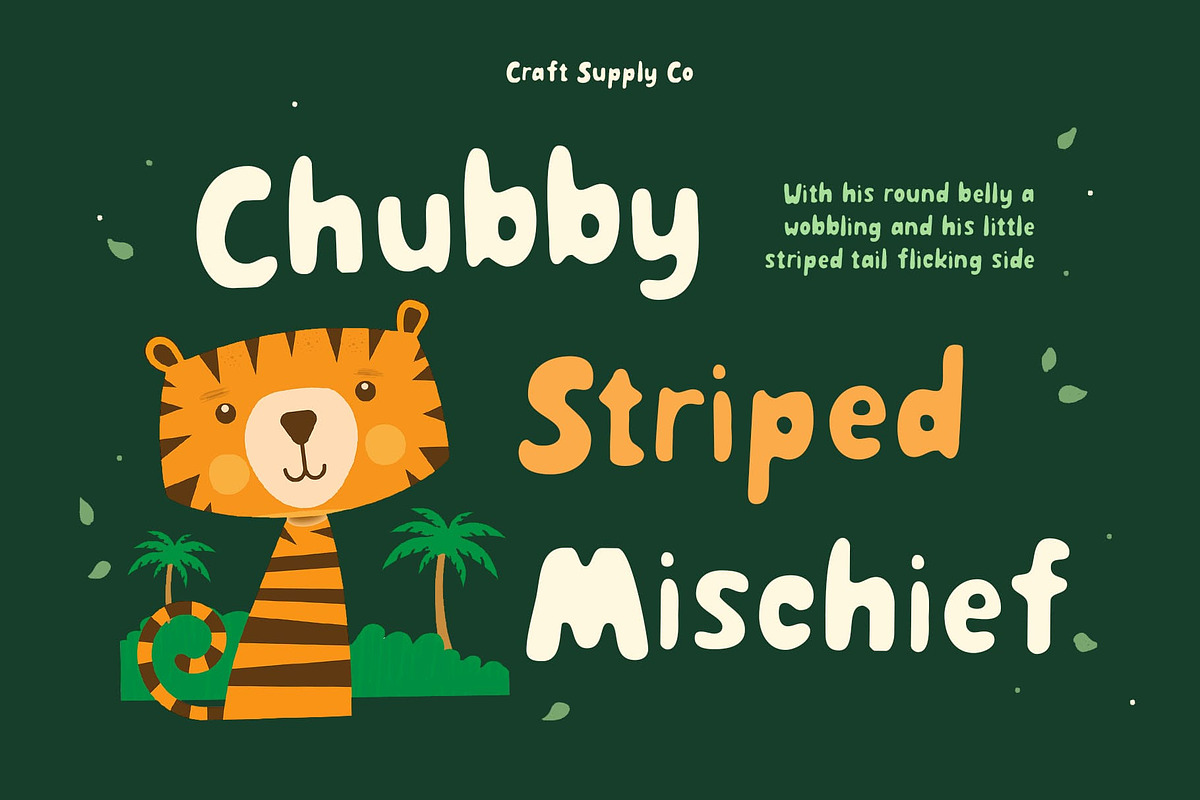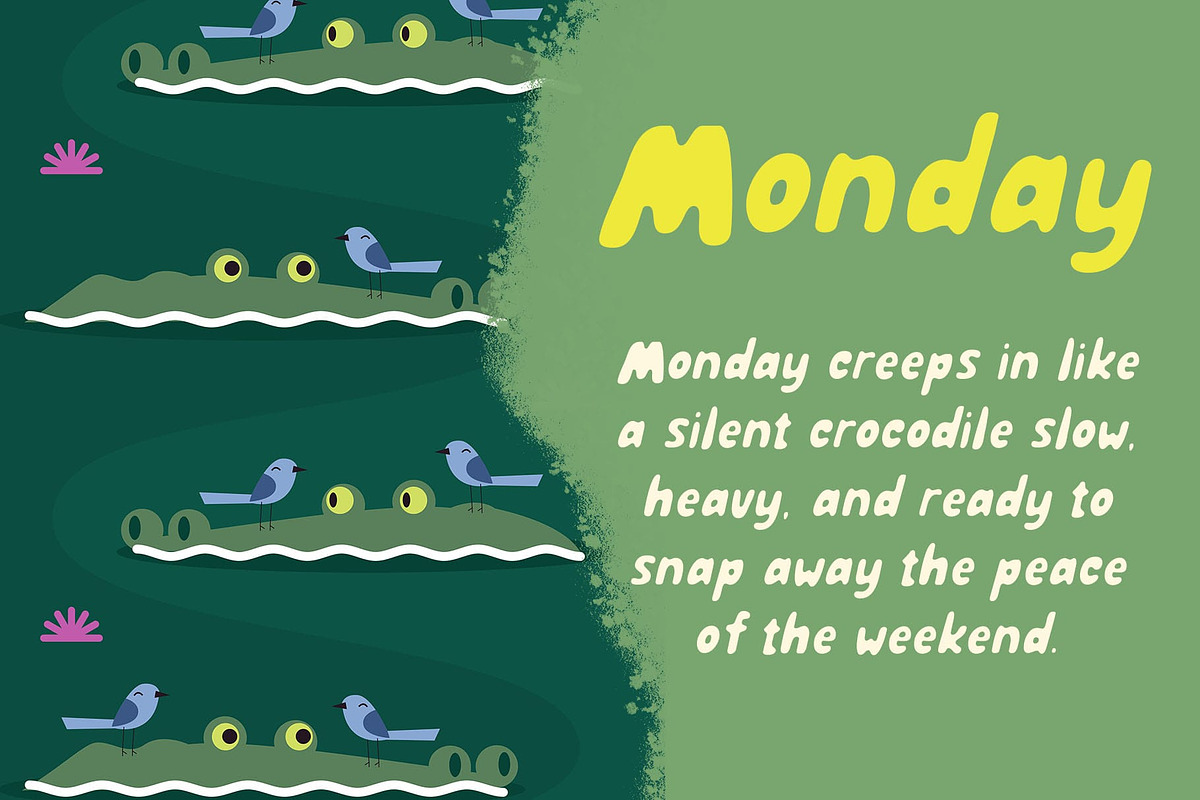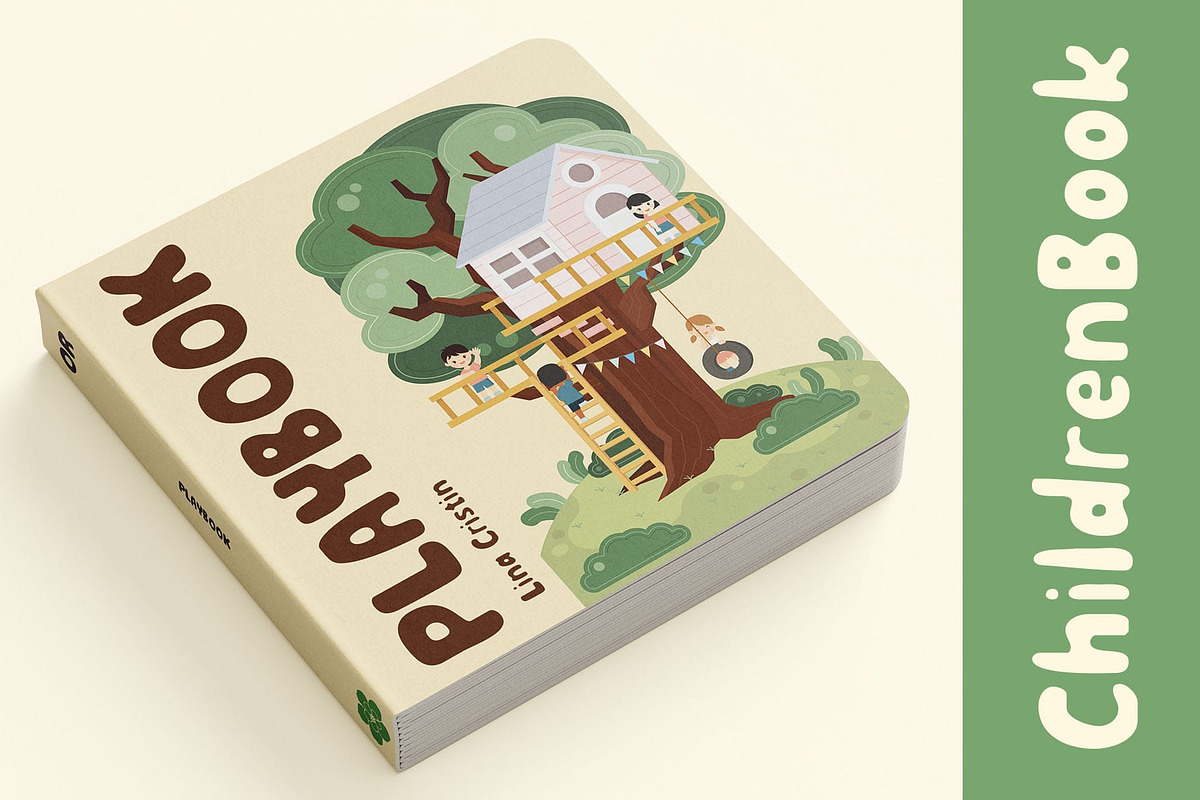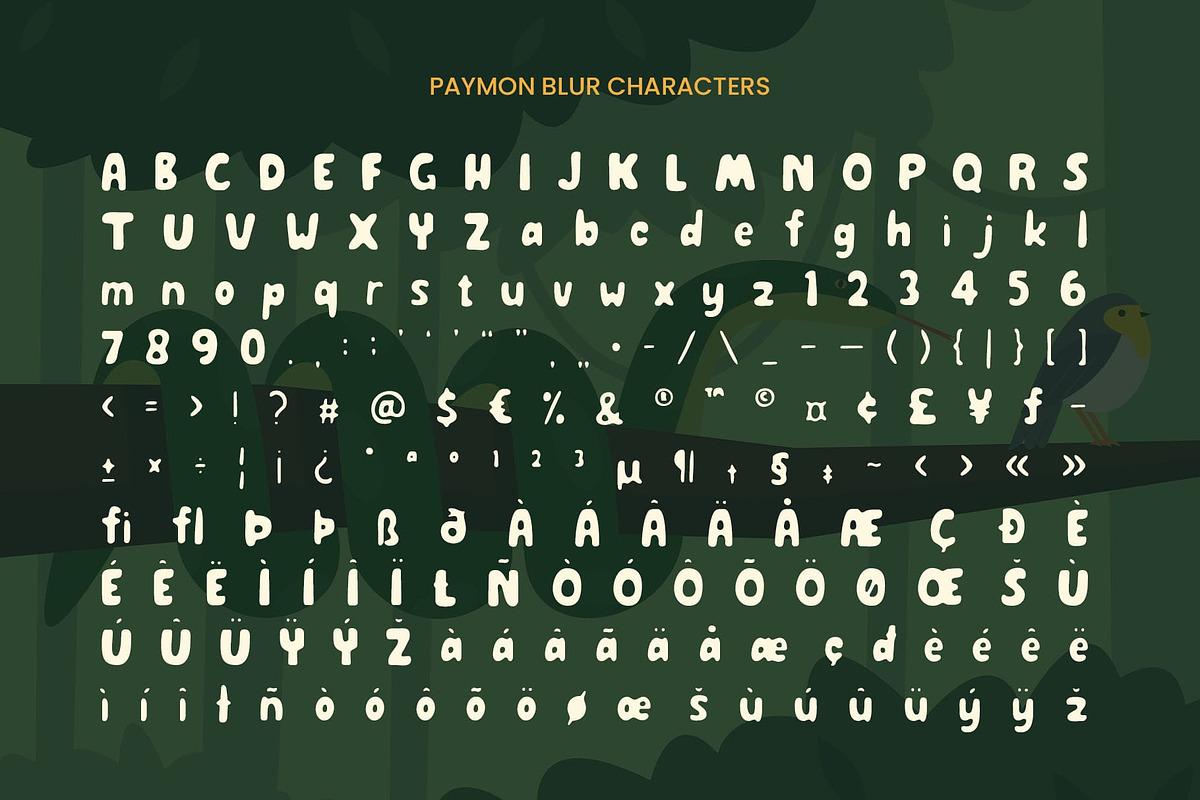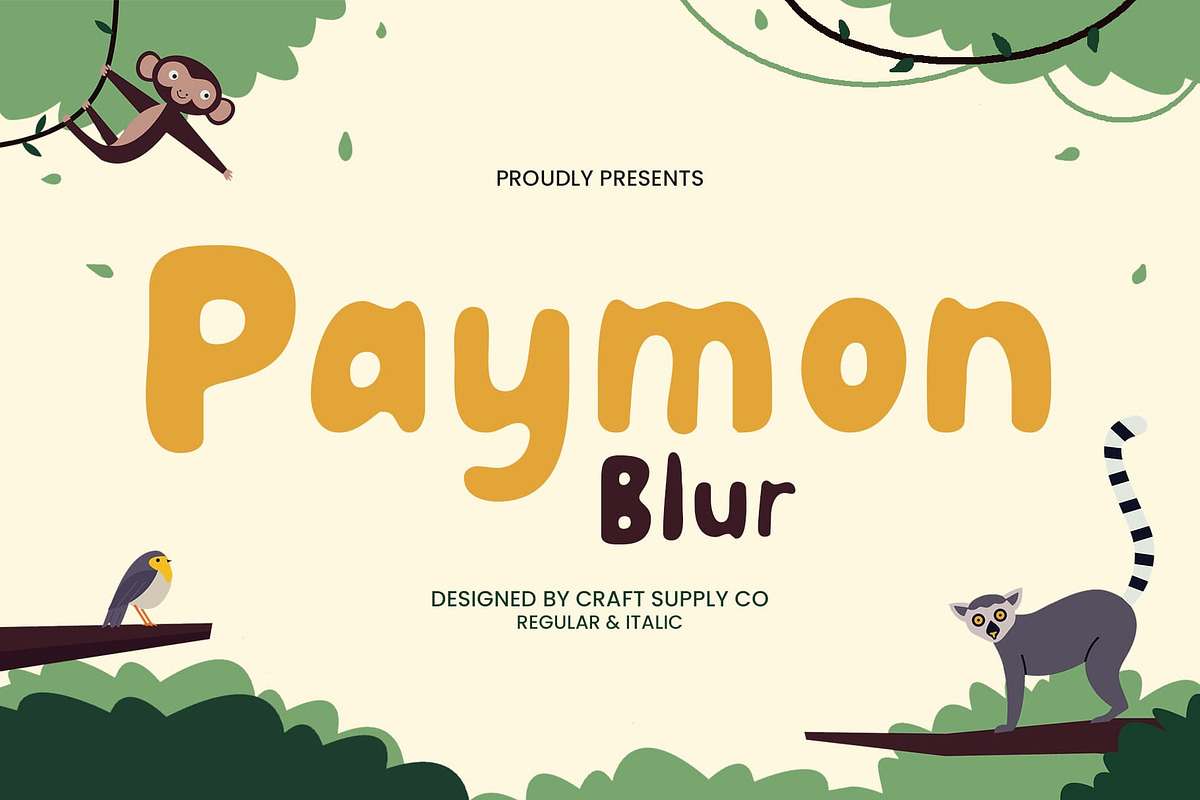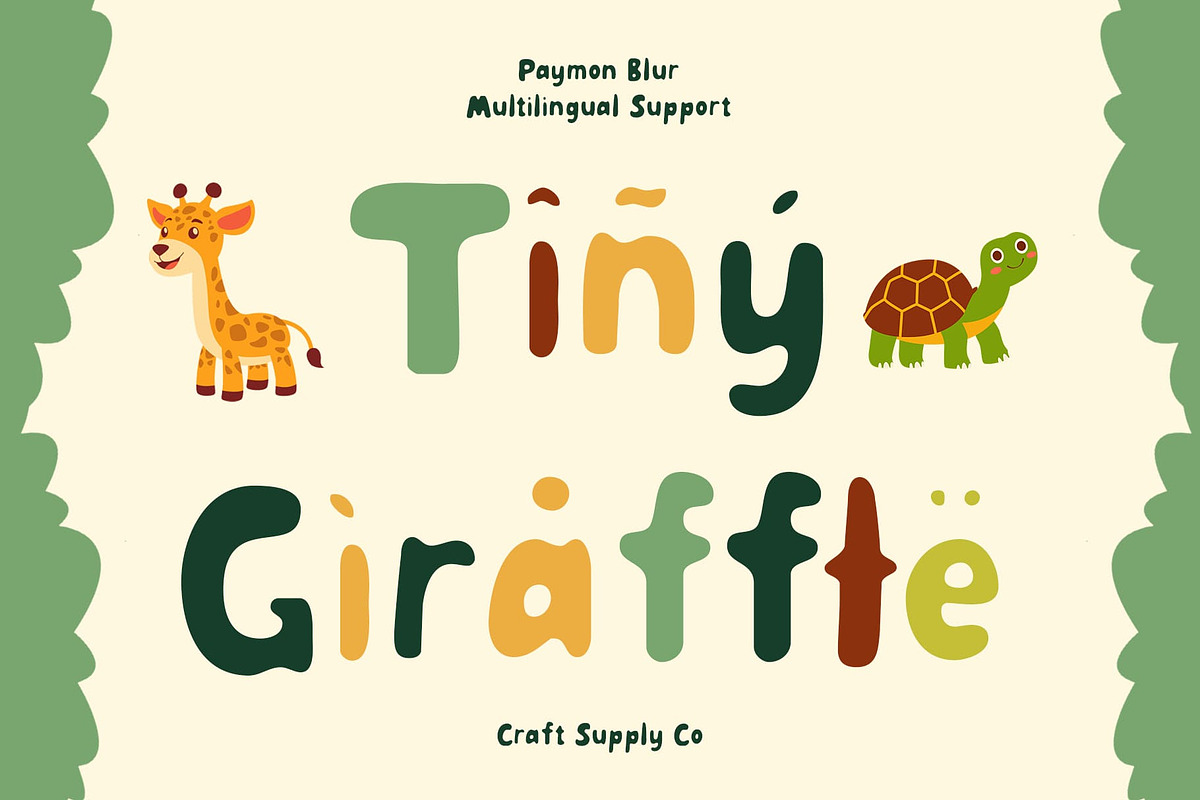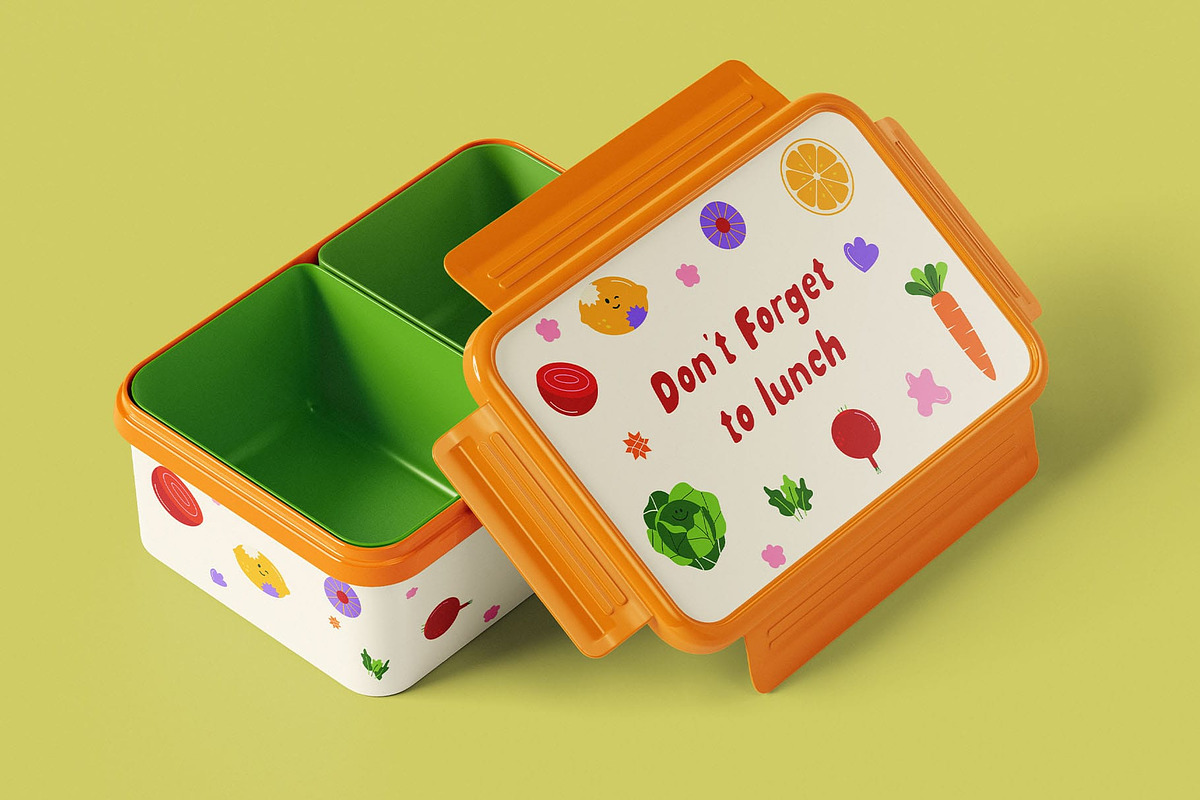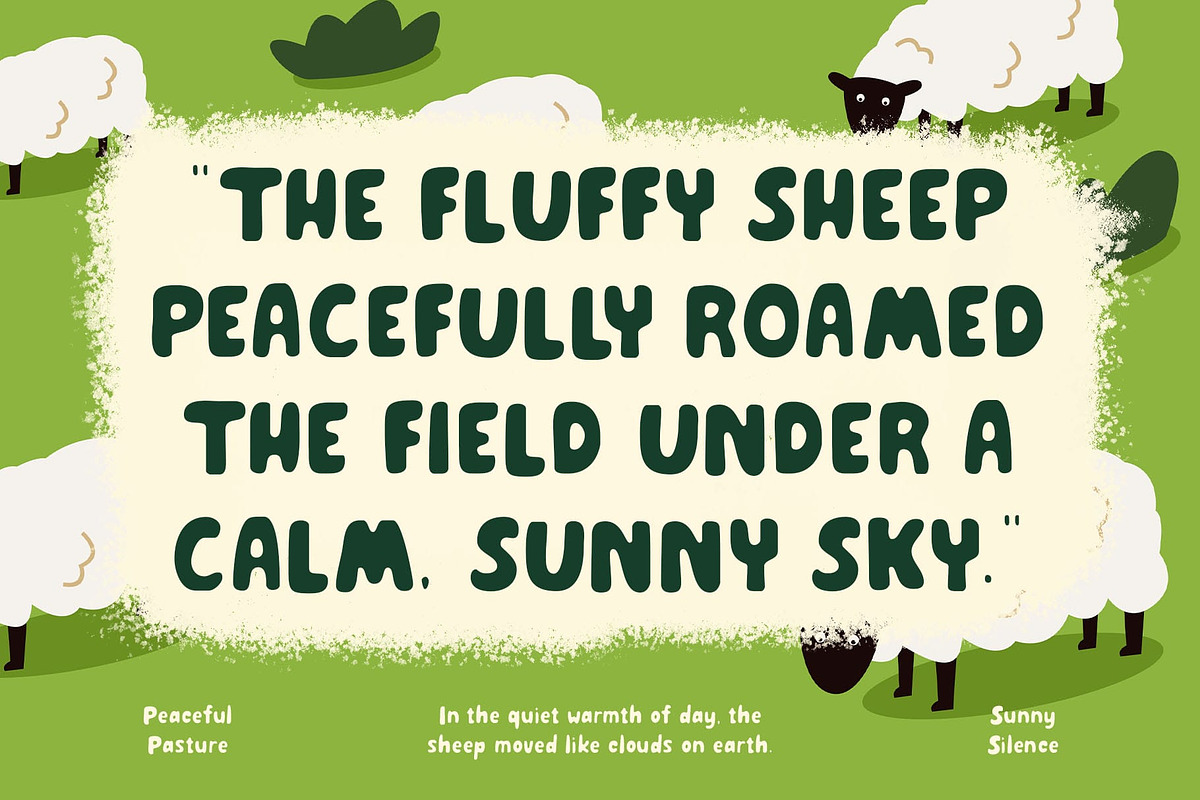
Paymon Blur
Paymon Blur Font – Bold Bubbles with a Dreamy Touch
Bold and Bubble Forms for a Fun, Playful Aesthetic Paymon Blur is a display modern font that stands out with its bold weight and rounded, bubble-like shapes. These plump and exaggerated letterforms bring a sense of joy and charm, instantly grabbing attention with their fun and friendly appearance.
Blur Effect for Softness and Imagination What sets Paymon Blur apart is its dreamy blur effect, which softens the edges of each character. This subtle haze gives the font a whimsical, imaginative quality—almost like it’s floating or glowing—adding depth and softness that enhances its childlike charm. The blur introduces a sense of motion and light.
Funky and Cute Mood for Cheerful Design The combination of funky proportions and a cute, bubbly style creates a lighthearted and expressive vibe. It evokes joy and innocence, making it perfect for child-oriented or youth-centric projects. Whether you’re crafting storybook covers, toy branding, or playful event signage, this font radiates positivity and energy.
Perfect for Kids’ Products, Posters, and Creative Projects Paymon Blur shines in children’s product packaging, educational visuals, birthday invites, and anything where a soft, playful, and friendly font is needed. Its unique mix of boldness, blur, and bubbly charm makes it a perfect tool for designers who want to inject fun and creativity.